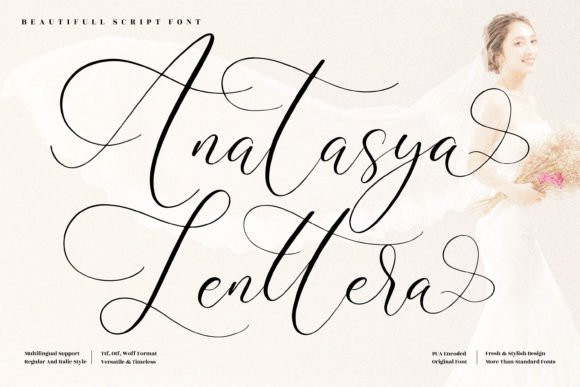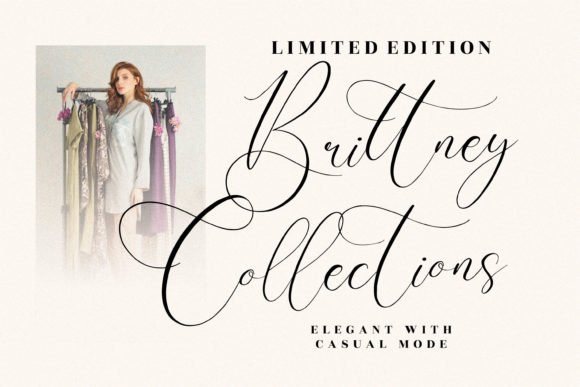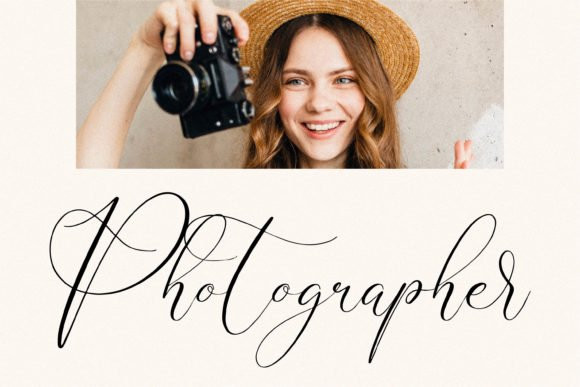
Anatasya Lenttera Font
Anatasya Lenttera is a beautiful and refined script font. It has a classy, elegant and modern look that can be used for logos, branding, invitations, stationery, wedding designs, social media posts, and much more!